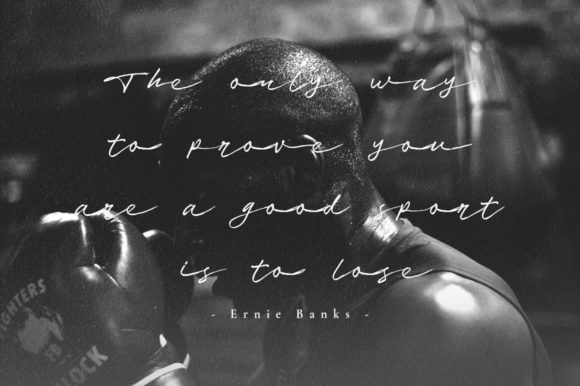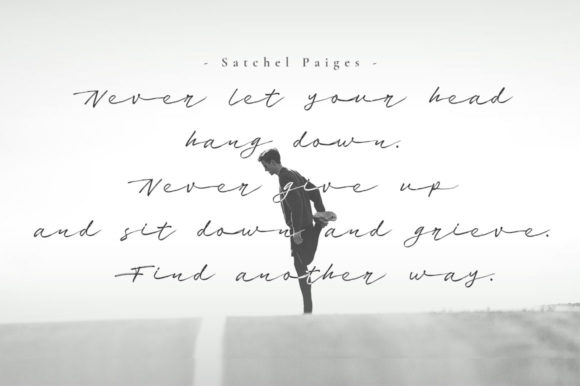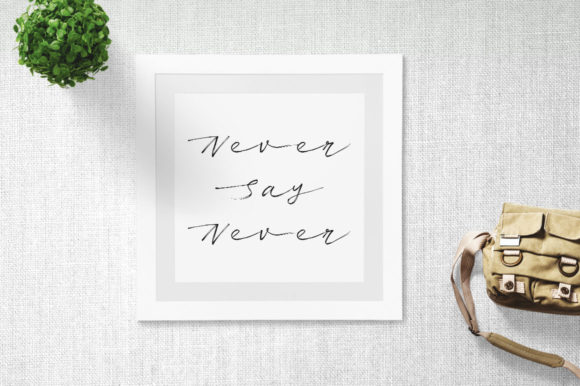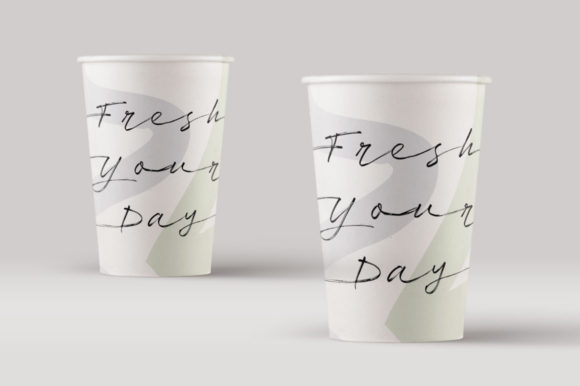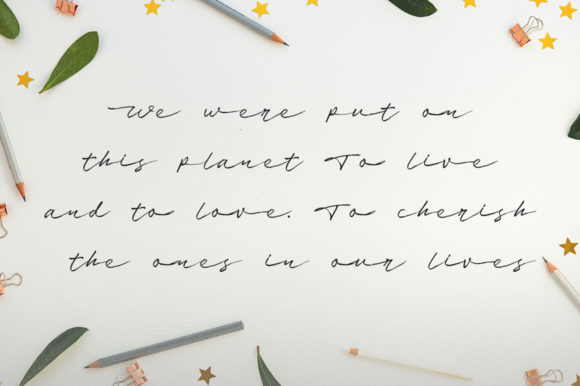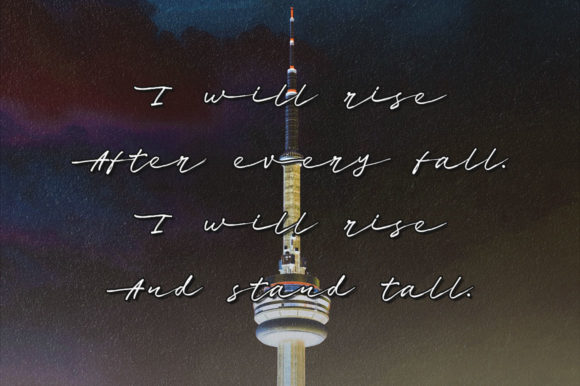
Introducing Fast Font: The Ultimate Handwritten Font for Creative Projects
Are you tired of using the same old fonts for your creative projects? Look no further! Fast Font is an incredibly relaxed and beautiful handwritten font that is sure to take your designs to the next level. Created with the help of a lovely brush pen, Fast Font boasts a unique and versatile style that is perfect for a wide range of applications.
The Story Behind Fast Font
Fast Font was crafted with love and care to bring a touch of elegance and sophistication to your designs. The font’s creator used a beautiful brush pen to craft each letter, resulting in a truly unique and organic feel. The relaxed and natural style of Fast Font makes it perfect for designers and crafters who want to add a personal touch to their work.
The Versatility of Fast Font
One of the best things about Fast Font is its incredible versatility. Whether you’re creating wedding invitations, stationery art, social media posts, or any other type of design, Fast Font is the perfect choice. Its beautiful, flowing script is sure to capture the attention of your audience and leave a lasting impression.
Perfect for Wedding Invitations and Stationery
Fast Font is a dream come true for brides and grooms looking for a unique and elegant font for their wedding invitations. Its romantic and whimsical style is sure to set the tone for a beautiful and unforgettable wedding. Additionally, Fast Font is perfect for creating gorgeous stationery art, including greeting cards, thank you cards, and more.
Take Your Social Media Posts to the Next Level
In today’s digital age, social media is an essential part of any designer’s or crafter’s marketing strategy. Fast Font is the perfect tool for creating eye-catching social media posts that will grab the attention of your followers. Whether you’re promoting a product, service, or event, Fast Font is sure to make your posts stand out from the crowd.
Why Choose Fast Font?
So why choose Fast Font over other fonts on the market? Here are just a few reasons:
- Unique and versatile style: Fast Font’s relaxed and natural style is unlike any other font on the market.
- Easy to read: Despite its handwritten nature, Fast Font is incredibly easy to read, making it perfect for body text and headings.
- High-quality design: Fast Font was crafted with love and care to ensure that it is of the highest quality.
- Perfect for a wide range of applications: Whether you’re creating wedding invitations, social media posts, or stationery art, Fast Font is the perfect choice.
Tips for Using Fast Font
Here are a few tips for getting the most out of Fast Font:
- Experiment with different sizes and colors: Fast Font looks great in a variety of sizes and colors, so don’t be afraid to experiment and find the perfect combination for your design.
- Pair with other fonts: Fast Font pairs beautifully with other fonts, so consider combining it with a bold or serif font to add contrast and interest to your design.
- Use it for headings and body text: Fast Font is easy to read, making it perfect for both headings and body text.
Fast Font is an incredible handwritten font that is sure to take your designs to the next level. Its unique and versatile style makes it perfect for a wide range of applications, from wedding invitations and stationery art to social media posts and more. With its high-quality design and ease of use, Fast Font is a must-have for any designer or crafter looking to add a personal touch to their work.